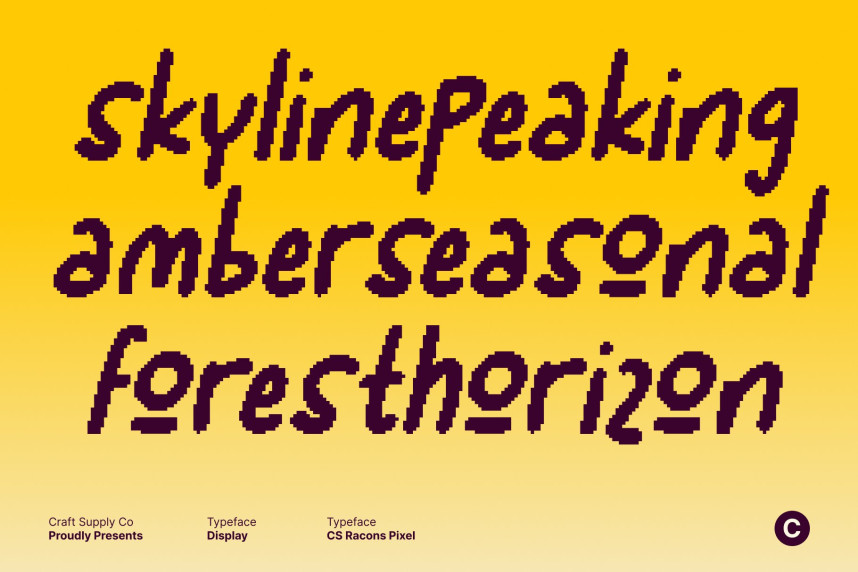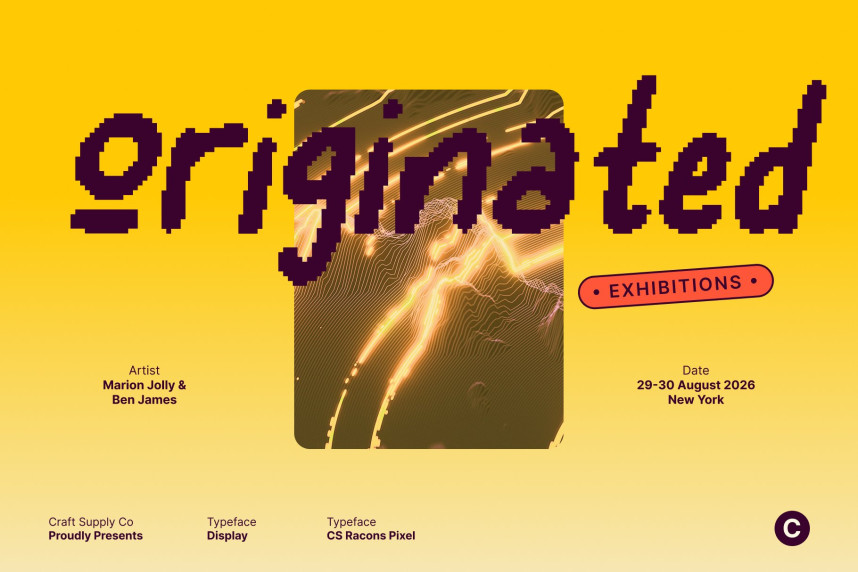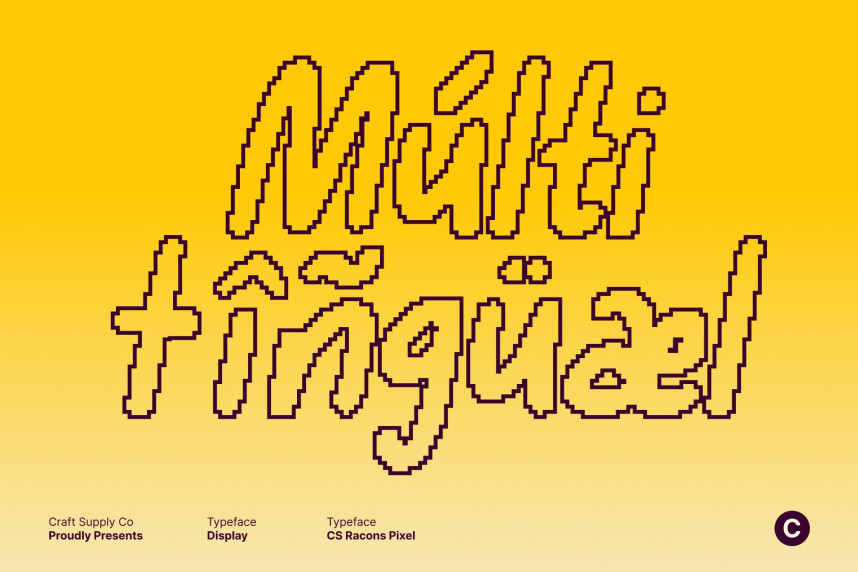
CS Racons Pixel Font
CS Racons Pixel Font – Casual Charm for Playful Designs Cute Handwritten Pixel Font with Friendly Personality. This is a cute handwritten-style display font designed to bring warmth, friendliness, and expressive charm into your designs. Built with soft pixel strokes and rounded forms, it delivers a casual, approachable feel that instantly makes text feel lively and inviting.